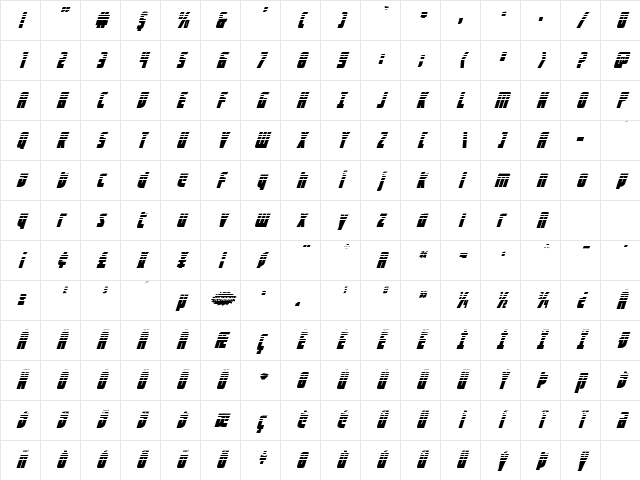
Complete Impact Wrench Halftone Italic Regular glyph index. Displaying only characters natively supported by Impact Wrench Halftone Italic Regular font.
Impact Wrench Halftone Italic brings high-energy athletic personality to the page - its confident, muscular forms are built for impact. The slanted form adds forward momentum and visual energy.
Pro Tip: Use Impact Wrench Halftone Italic in all-caps headlines where its athletic energy can fully express itself. Pair with a solid, simple sans for supporting text.